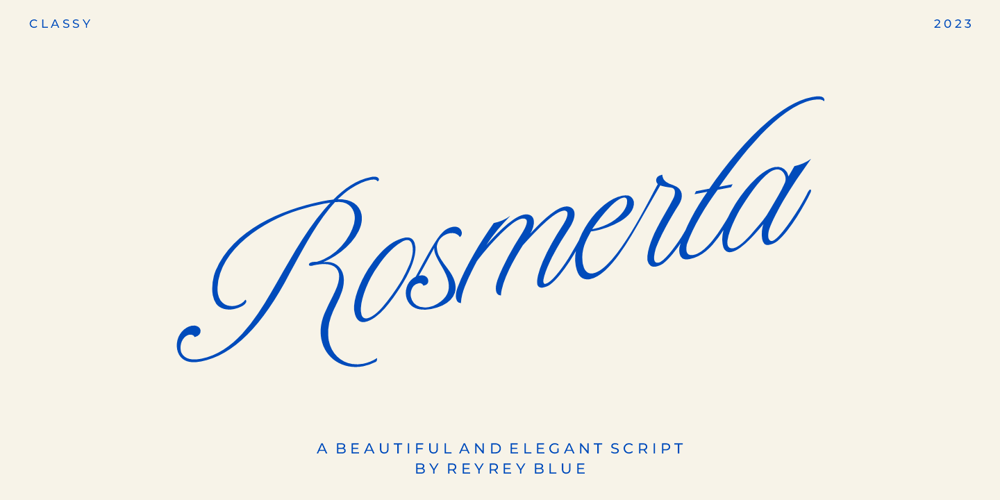
Rosmerta
Rosmerta font
Rosmerta Font Family was designed by Risca Anitawati and published by Reyrey Blue Std. Rosmerta contains 1 styles and family package options. Introducing, Rosmerta Typeface. It’s elegant, classy, and a little vintage look. Rosmerta Typeface has a few stylistic alternatives and ligatures so that you can mix and match your best combination.Rosmerta Typeface is perfectly suitable for a layout design for quotes or body copy, best used as a display for headings, logos, branding, magazines, product packaging, invitations: logotypes, and much more. Don’t wait to add this font to your collection and explore the uniqueness of this typeface!Features : All Uppercase and Lowercase Number & Symbol Supported Languages Ligatures Stylistic Alternate PUA Encoded Hope you enjoy our font!